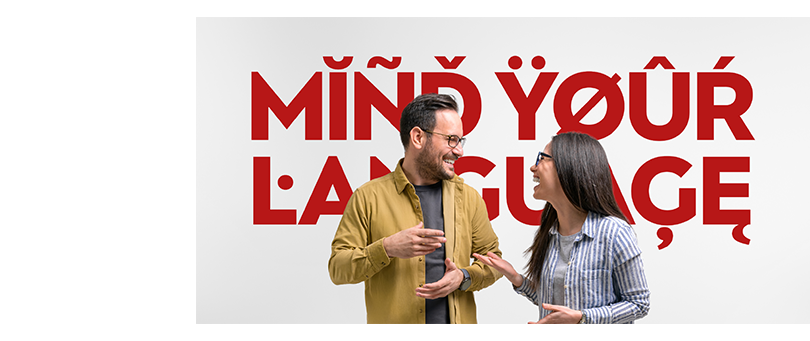
Upping your game: How to keep improving as a type designer.
Keep making those mistakes and return with a critical eye in the future.
This article is aimed at type designers who are in the blossoming period of their career – somewhere between beginner and intermediate. This can be an exciting time where you have maybe produced a dozen or so different font families, you’ve had some success with sales and the extra income is making life easier, Monotype is promoting your work, people are messaging you to find out more about you and your type portfolio, etc. But there’s a nagging feeling that you need to up your skills to get to the next level and achieve your goals.
The question is, can you get there under your own steam or should you enrol on a full-time type design course? I chose the former and the following paragraphs of advice are pulled from my own experiences while establishing myself in this wonderful type design world.
Keep making mistakes
The greatest learning experience is to make mistakes and not be afraid to make them. Of course, as you are drawing the greatest ampersand that has ever been created having no peers whatsoever, you will not realise that you made a single mistake. It is imperative that you let your drawing style and technique flourish as you develop as a type designer. The eureka moment comes when you look back at your earlier work and realise that those arcs are not as smooth and balanced as they could be, and the weight is a little light compared to the rest of the typeface, and so on.
Thankfully, over time, as you immerse yourself into the world of creating fonts and become influenced by the GOATs of type design, your perception changes. You can now go back to that misshapen ampersand and correct it. If you can say to yourself “What was I thinking when I drew the ‘g’ like that?”, then you are making excellent progress as a type designer. Why not take a few days to create an improved version 2.0 of that font and release an update for your previous customers? This is highly beneficial when building up your reputation. So keep making those mistakes and return with a critical eye in the future.
Discovering space
I often see descriptions of typefaces where they claim there are something in the region of ‘2500 kerning pairs!’. Seriously, if this is the case for a basic typeface, this is not something you should be boasting about. It is highly likely you have not mastered the art of adjusting side-bearings and spacing your font correctly before attempting the most necessary kerning pairs. You should begin the process by typing out a simple string of letters such as ‘HOHHOOHnonnoon’ and train your eye to look at the negative space between the glyphs. Adjust the side-bearings on each glyph so that they look balanced to you. Now apply those side-bearings to glyphs that share the same vertical characteristics. Type out a word such as ‘minimum’, is that balanced? Does it have a consistent rhythm? You’re well on the way to saving yourself hours of kerning. Once you have the basics nailed, move on to common letter combinations such as ‘st’ and ‘re’. Place them into words and adjust the side-bearings so that kerning is not required. Once you have mastered this, you can try trickier character strings such as ‘AWAYAVATAR’ where you will most likely require kerning adjustments.
While we are still exploring space, do not forget the space character itself! This is an integral part of how well your typeface will read on screen and in print. Again, this is something that will come with experience. There are no set rules as to how wide the space character should be, but if your words are wide enough apart to drive a bus through, then you really need to address this. The space character should be at its widest in your thinnest weight and narrowest for the heaviest weight. You will need to judge the overall balance by eye rather than mathematical calculation.
Mind your language
I strongly urge that you invest some time into studying diacritics. You will soon realise that poor application of them can cost you a sale from a European language-speaking customer. The golden rule for diacritics is to have them harmonise with the tittle of the ‘i’ glyph in your font. Don’t be afraid to go a little heavier on the weight too, the important thing is that they are clear and distinctive. Another consideration to add further professionalism to your fonts is to adjust your diacritics for caps. Generally speaking they should sit in a shallower space than their lowercase counterparts, a little bit heavier in weight and wider too.
A typeface is more than A to Z
So you have spent weeks developing your wonderful new typeface and every letter looks absolutely gorgeous in your eyes… but wait… what about that sad looking pair of braces sitting in the corner? Every professional type designer will have considered each and every glyph in a new font, ensuring that the same styles and rules are adhered to as set by the main character set from A to Z. All punctuation, symbols and marks should be treated with equal care and attention. You will appreciate the huge difference it makes to the final typeface, and so will your potential customers.
Keep on pushing
I always find that the break between completing and designing a typeface is a great time to down tools and explore something different. Sometimes it is best to take a complete break altogether and get away from screens. However, more often than not, I tend to find myself something type-related to indulge in. I might absorb myself in a particular period of type history, or go travelling and appreciate the local typography, I might go back and tweak an older typeface for an update or challenge myself to learn something new. As I write this article I am incorporating Cyrillic into a typeface for the first time. It’s particularly taxing as I do not understand the language or the context in which these new letterforms I am creating will be used. But I will persevere, and I will get help on areas I might struggle with. The important thing is to keep challenging yourself and your capabilities. It keeps you in a continual state of learning and thus inhibits the possibility of stagnation… and no one wants that.